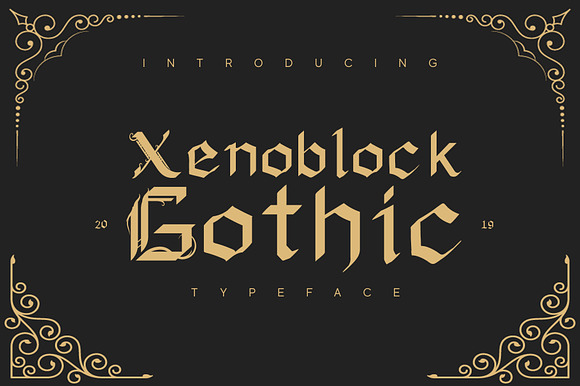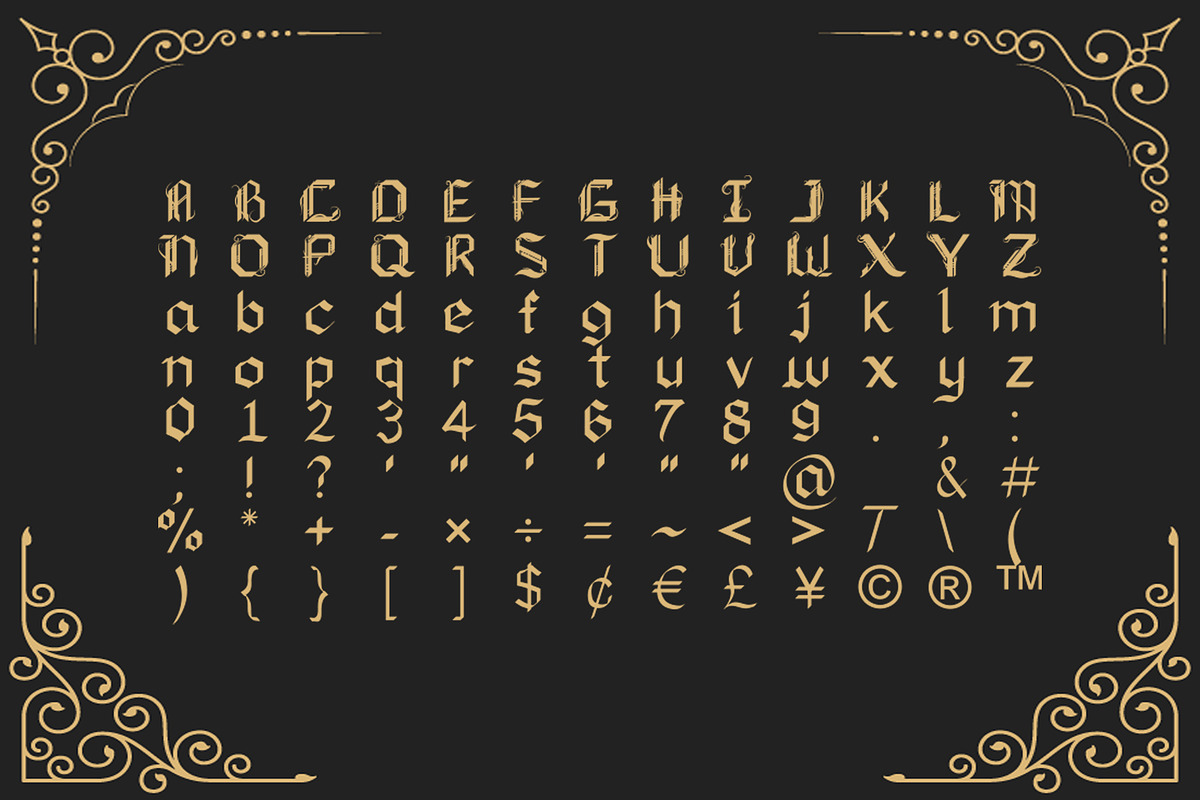
Xenoblock Gothic Typeface
Xenoblock Gothic blackletter typeface
Why Xenoblock Gothic Typeface is worth a look
Xenoblock Gothic Typeface by Etheric Media fits naturally into Branding, posters, packaging, typography.